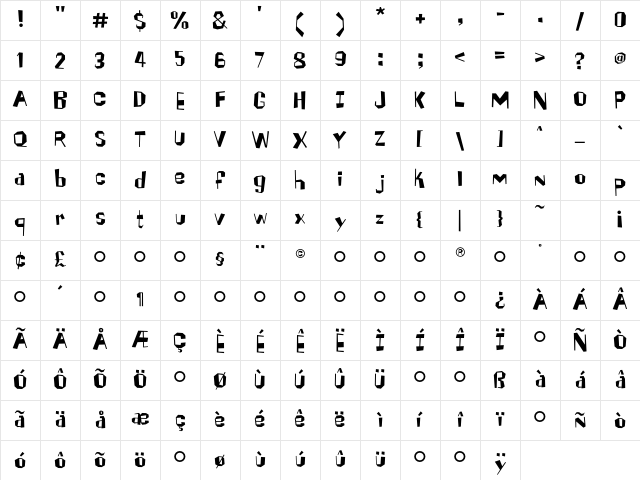
Brickhouse Regular Free Font
Brickhouse Regular
Complete Brickhouse Regular glyph index. Displaying only characters natively supported by Brickhouse Regular font.
Design Context for Brickhouse
Brickhouse is a composed and adaptable typeface that performs quietly and consistently across a wide range of design contexts.